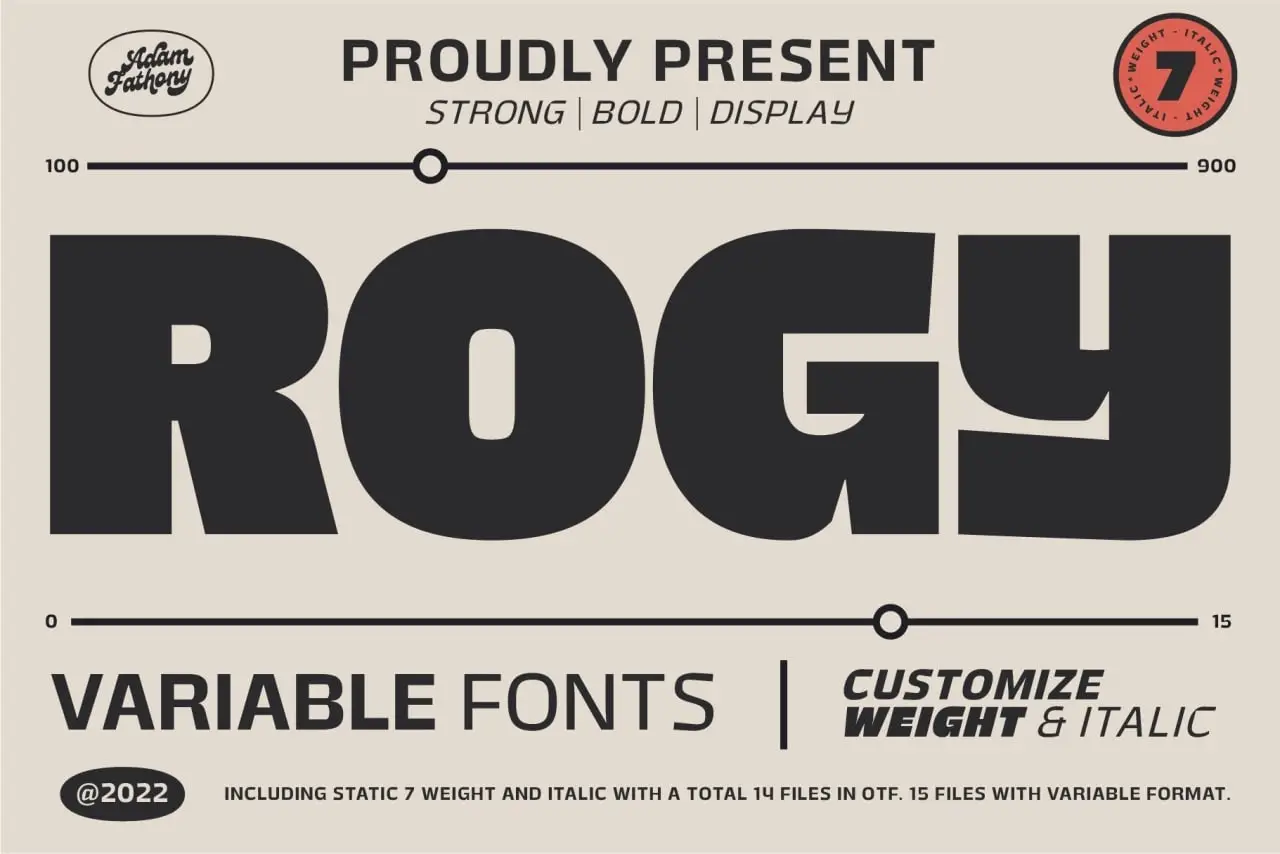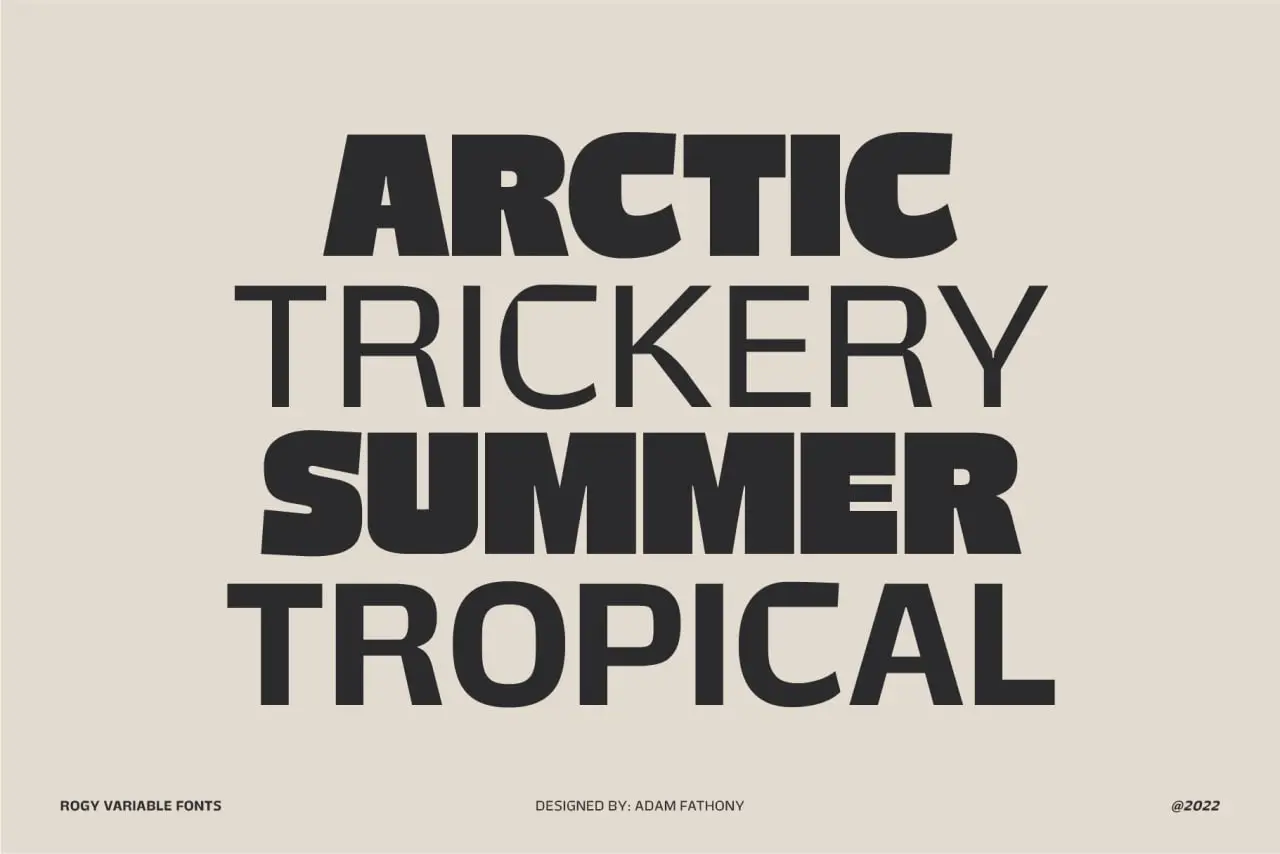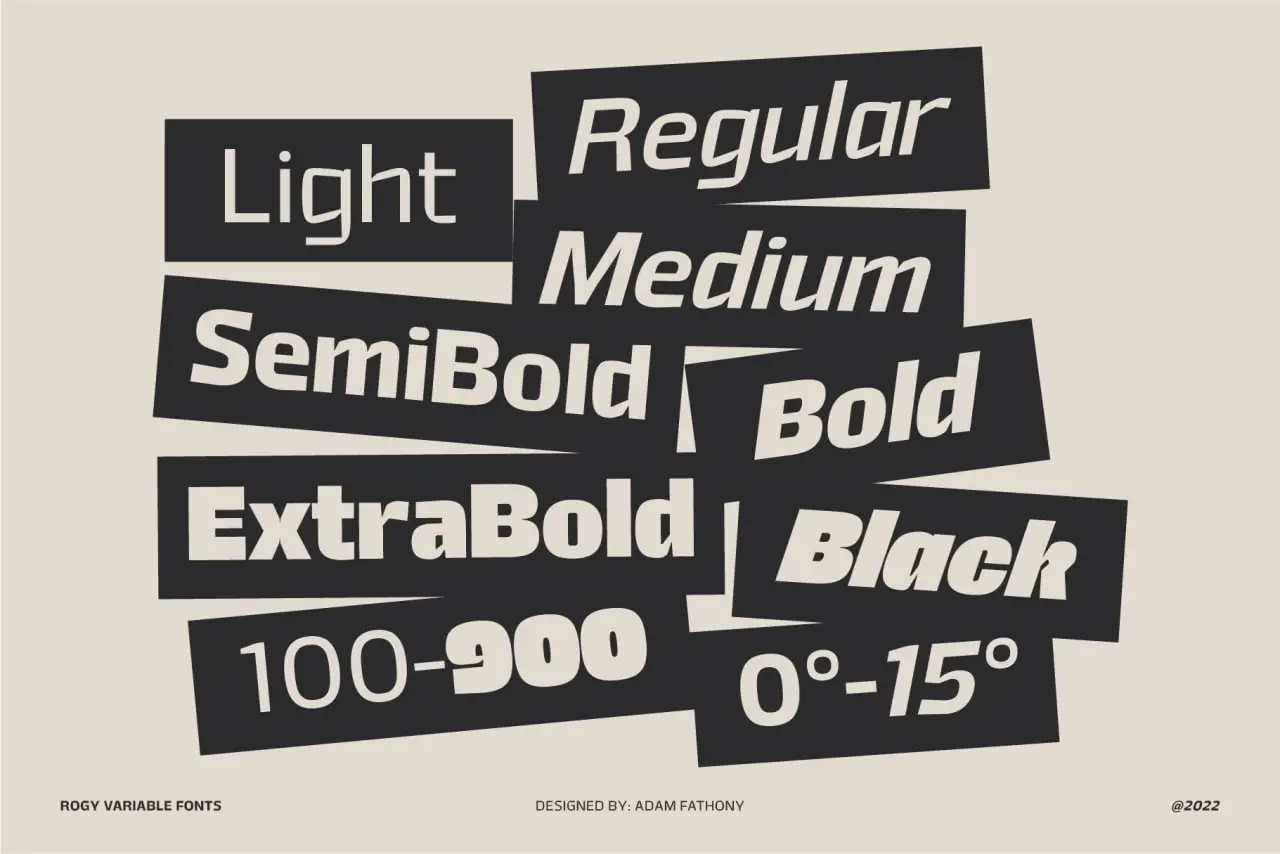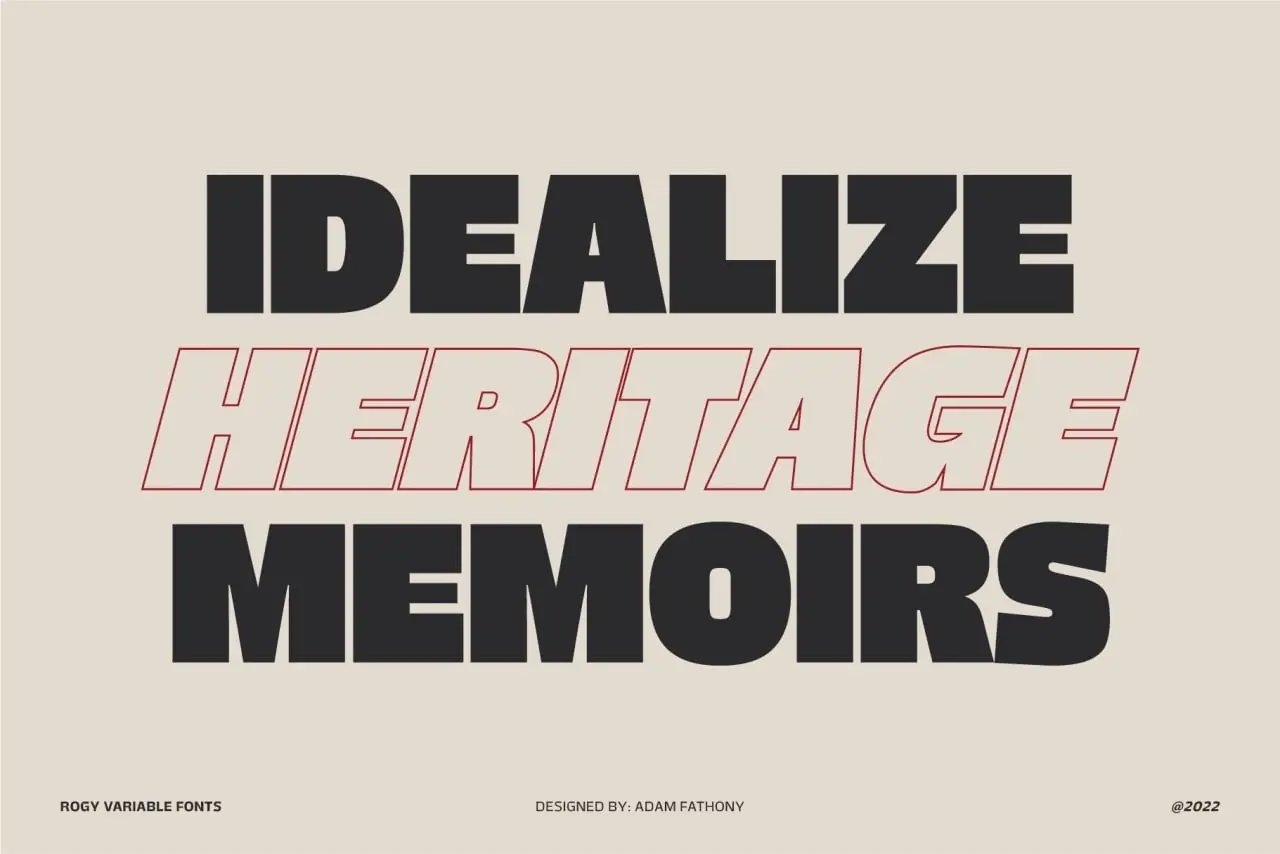
Rogy Font By Adam Fathony
The Rogy Font by Adam Fathony is a modern typeface that brings a unique flair to your design projects. With its clean lines and stylish curves, this font is perfect for a variety of applications, from branding and logos to web and print designs.
• Styles: Available in Regular and Bold weights
• Ideal for creating eye-catching logos and branding materials
• Great for website headings and UI elements
• Use in print media such as brochures and posters for a modern touch